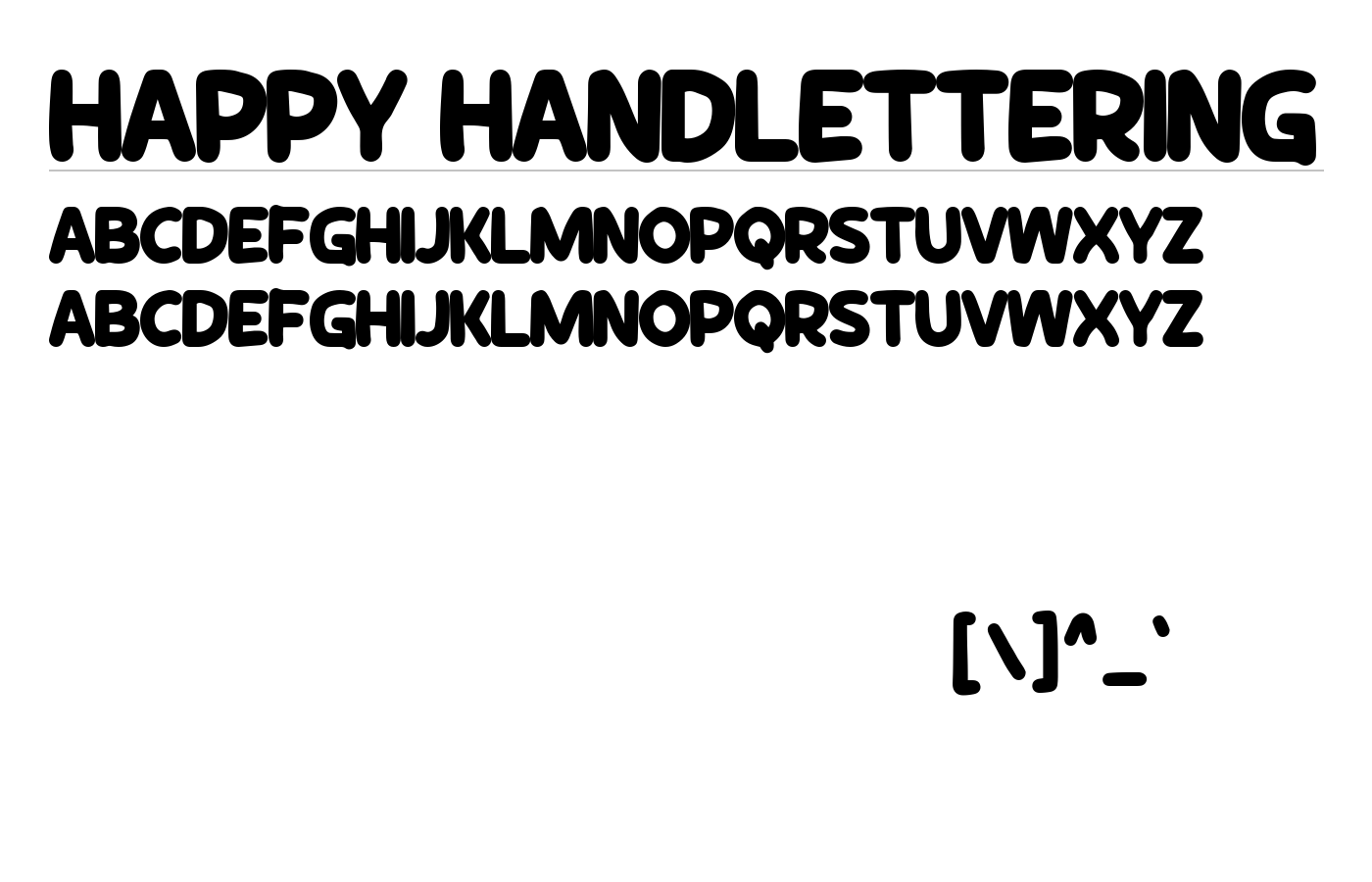
Happy Handlettering is a bold, playful sans serif font with rounded, friendly letterforms that give it an inviting, casual feel. Its consistent weight, soft curves, and all-caps style make it perfect for cheerful headlines, children’s projects, and branding that aims to be approachable and fun. This font works well where a warm, lively personality is needed to catch attention and convey positivity.
Happy Handlettering Font
About Happy Handlettering Font
| Font family | Happy Handlettering Font |
| Release date | 2022-04-03 |
| Designer | Lady Hanna |